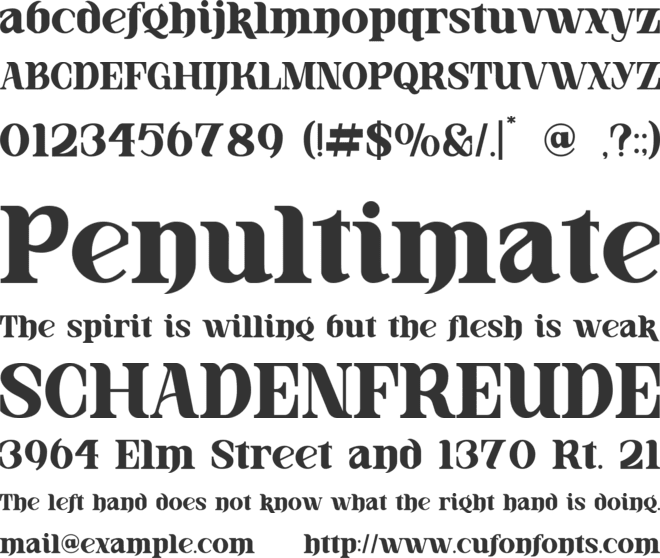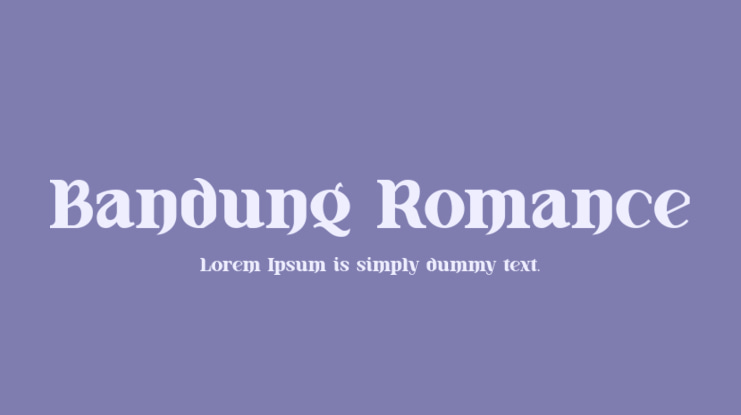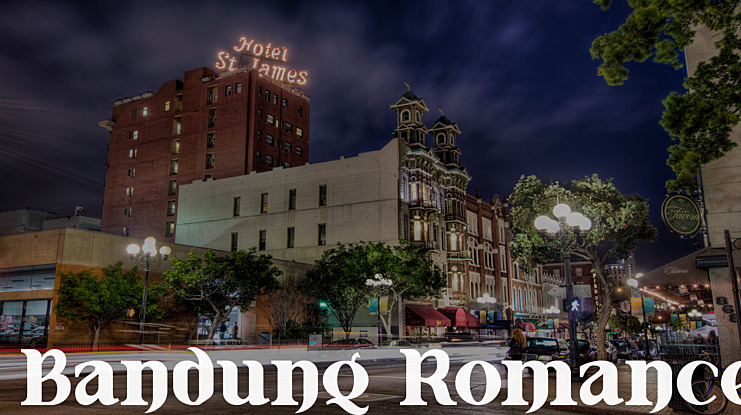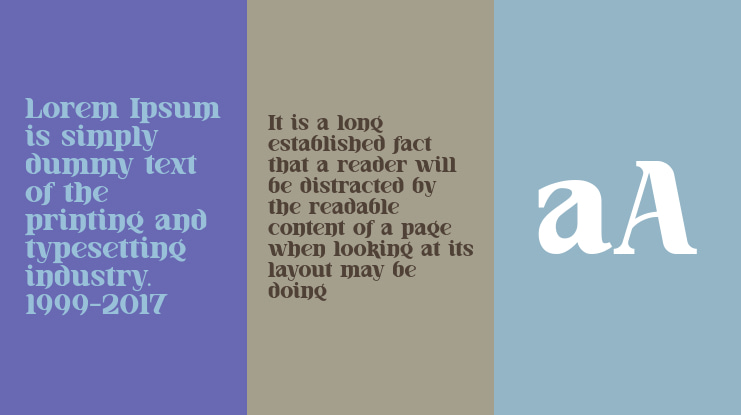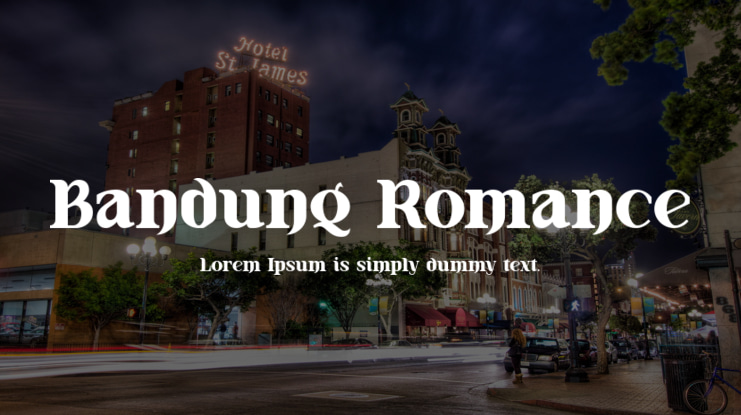
Bandung Romance Font
An aesthetic font that has a unique and elegant character to use.
Bandung Romance is a beautiful and elegant serif Font. With inspiration from a beautiful city with all the memories and love that blossomed in it . This font I created is meaningful & very versatile, it goes well with various designs, elevating them to the highest level. Add this font to your favorite creative ideas and see how it turns out!
Features: Uppercase, Lowercase, Alternates, Ligatures & multilingual Support